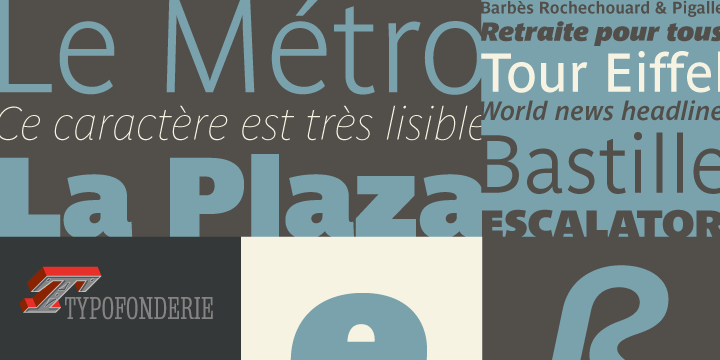
A workhorse & economical sanserif in 16 series
Parisine is a workhorse and economical sanserif, highly legible, who can be considered as a more human alternative to the industrial-mechanical Din typeface family. More human, but not fancy: No strange “swashy” f, or cursive v, w etc. on the italics, to keep certain expected regularity, important for information design, signages, and any subjects where legibility, sobriety came first. More…